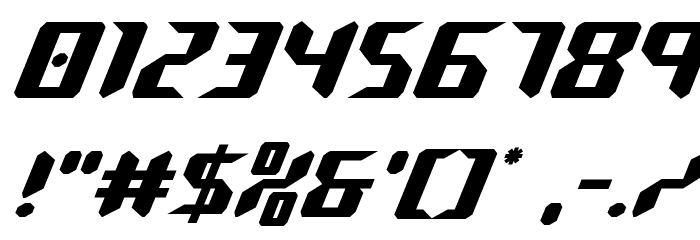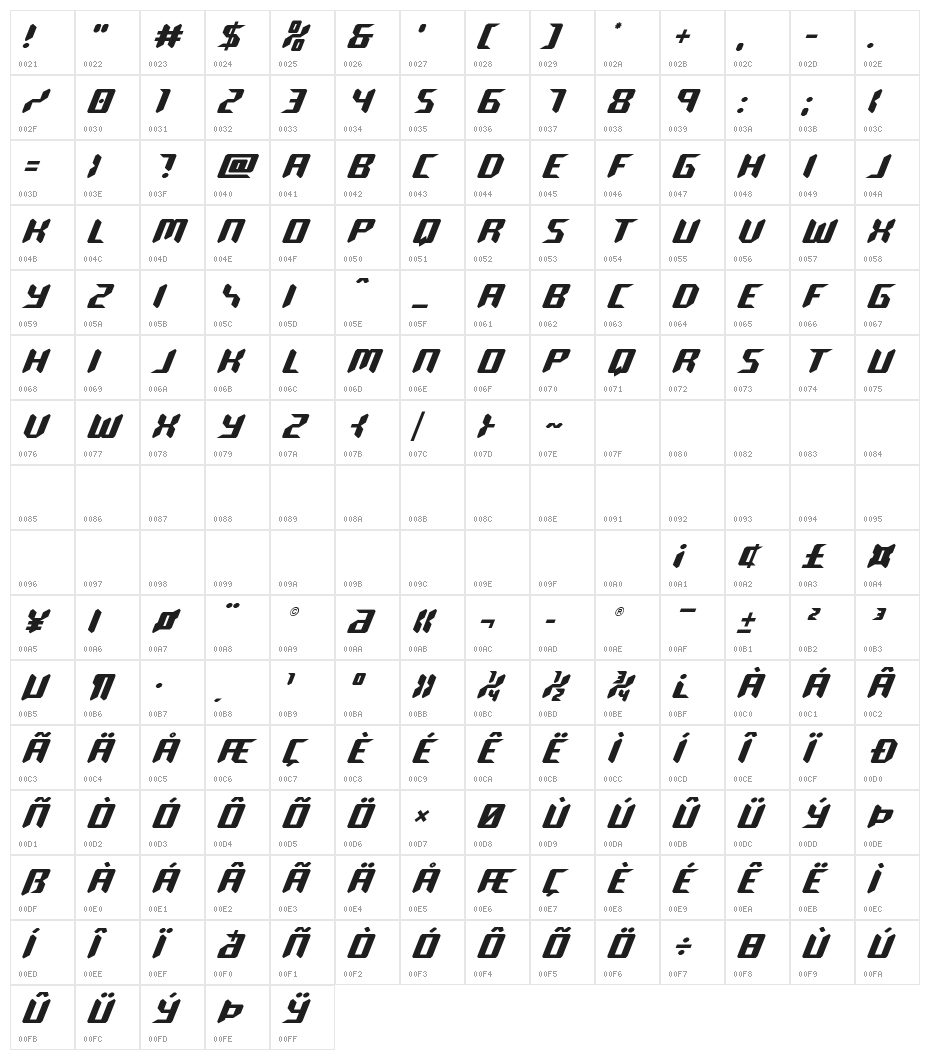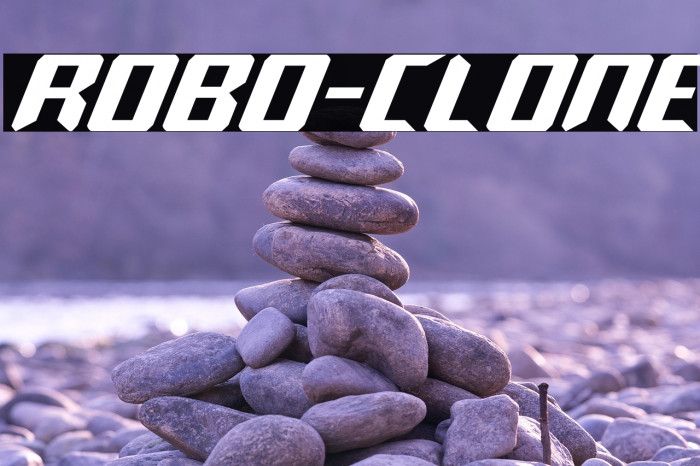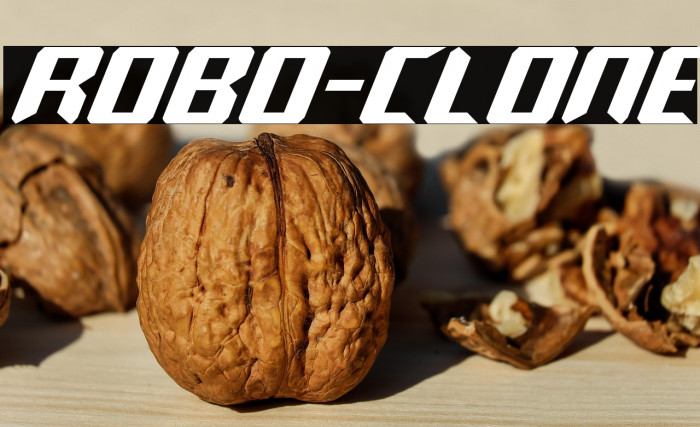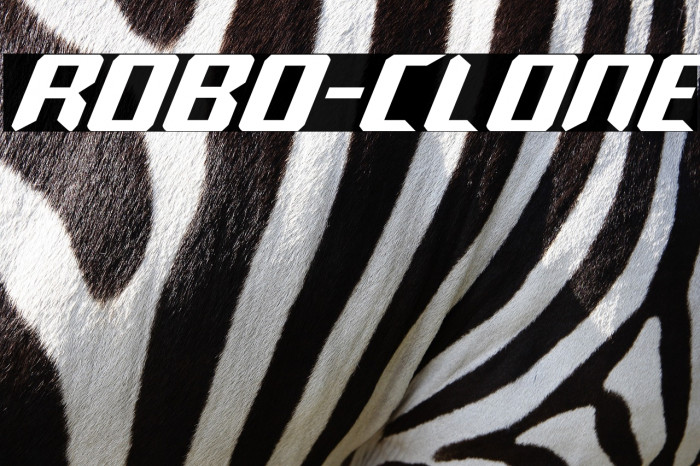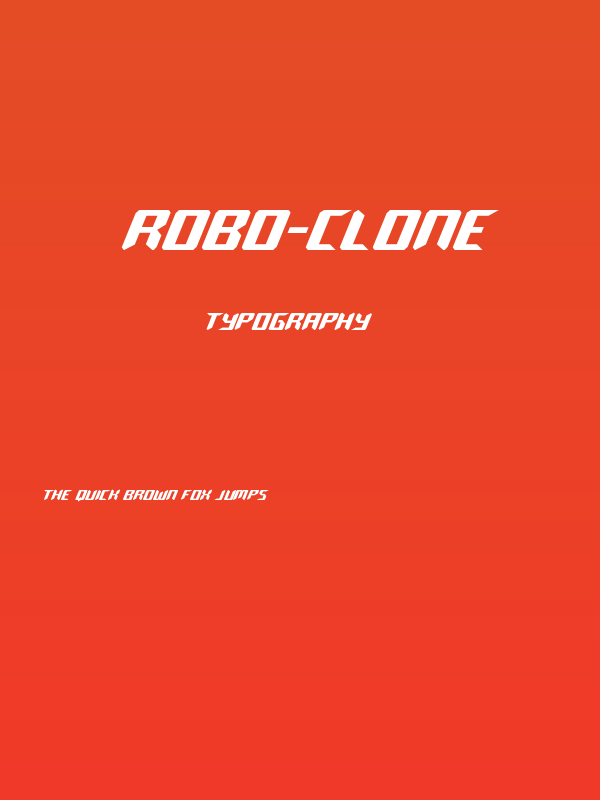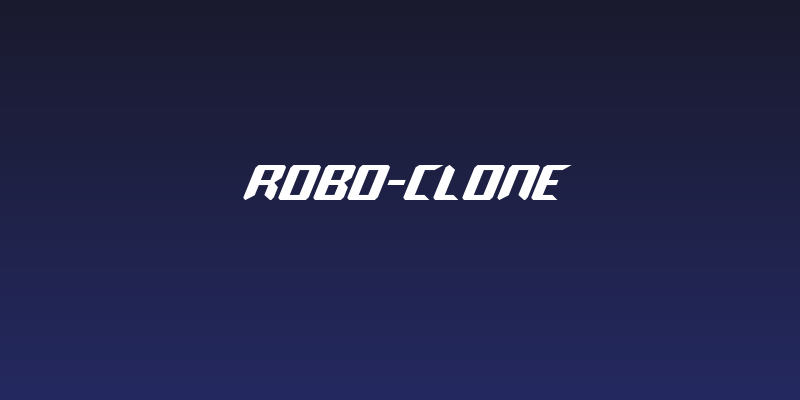
Robo-Clone Font
Robo-Clone Description
This font features a futuristic and angular design, characterized by sharp edges and a bold presence. The letters are slanted, giving a sense of motion and speed, which is further emphasized by the thick, consistent strokes. The geometric shapes create a modern and dynamic appearance, making it suitable for projects that require a strong and impactful visual statement. The uniformity in stroke width ensures readability while maintaining a unique style. The numbers and special characters follow the same design principles, ensuring consistency across all elements.